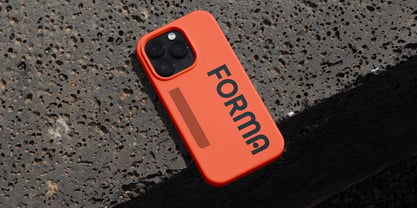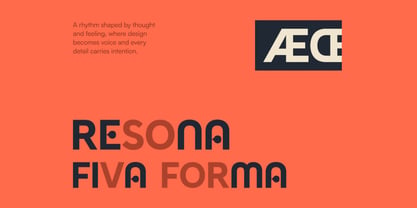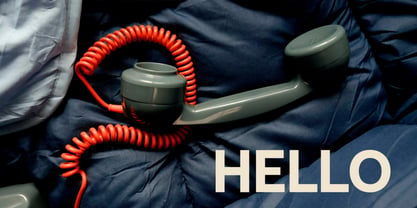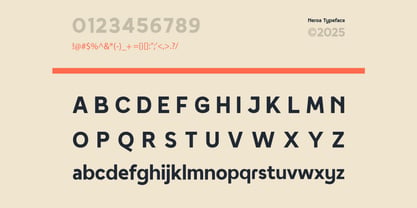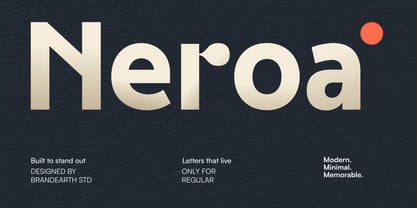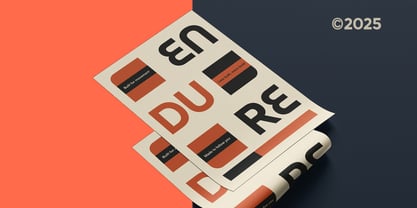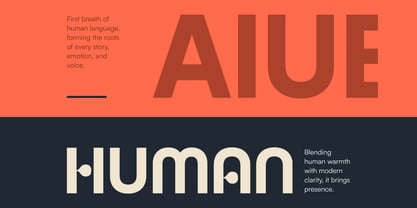
Neroa
by Brandearth
The Neroa Font Family was designed by Moch Rasjid Wiyono and published by Brandearth. Neroa contains 1 styles. More about this family
Neroa is a geometric sans serif font featuring clean, modern letterforms with uppercase and lowercase characters, ligatures, stylistic alternates, and multilingual support. Designed for clarity and versatility, it is suitable for editorial layouts, product packaging, UI/UX design, logo design, minimalist compositions, fashion branding, bold headlines, web interfaces, mobile apps, startup presentations. Suitable For tech branding, editorial titles, logo design, minimalist layouts, identity, product packaging, UI/UX design, bold headlines, clean web design, creative portfolios, luxury branding, mobile apps, startup decks, social graphics, advertising, geometric visuals, digital banners, signage design, display typography, trend campaigns.